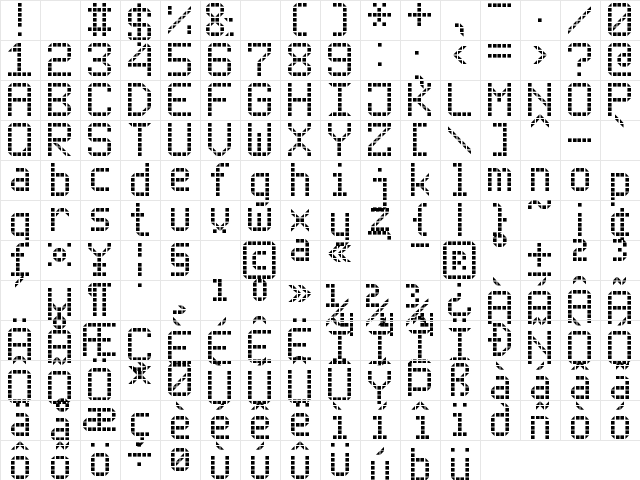
Rounded LED Board-7 Regular
Design Context for Rounded LED Board-7 Typeface
Rounded LED Board-7 softens its letterforms with rounded terminals, giving it an approachable, friendly quality that works well in consumer-facing and digital contexts.
A natural fit for tech startups, health and wellness brands, children's products, and friendly consumer apps.
Font Pairing: Pairs well with a rounded or humanist sans for body copy, maintaining the friendly tone without relying on Rounded LED Board-7 to carry extended reading.
Pro Tip: Pair Rounded LED Board-7 with a geometric sans for a balanced system — the rounded softness works as a warm counterpoint to harder-edged companions.